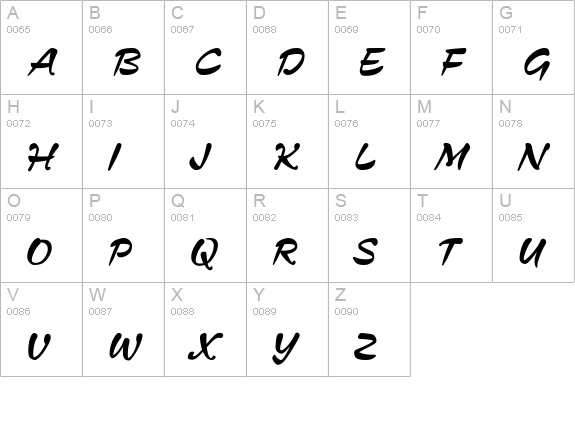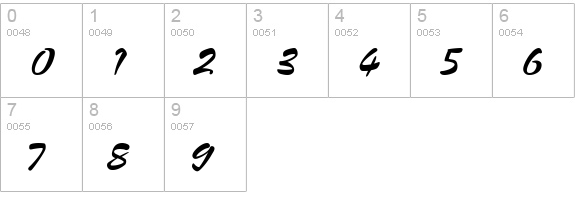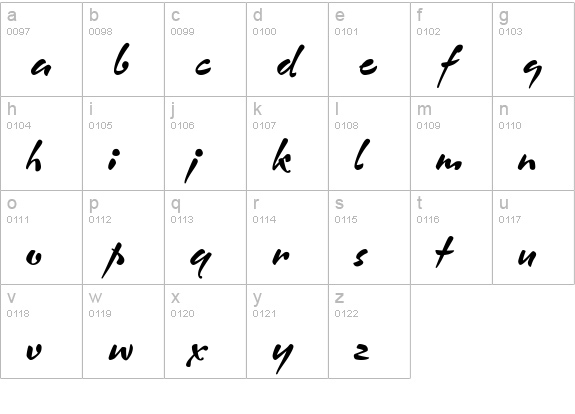
ZennorPlain Font Details
ZennorPlain is a modern and elegant font that exudes sophistication and style. With its clean lines and simple yet refined design, this font is perfect for a wide range of design projects, from branding to editorial design. The versatility of ZennorPlain makes it a great choice for both digital and print applications. The best part? ZennorPlain is completely free to download at FontsMarket.com. So whether you're a professional designer looking for a new go-to font or just someone who appreciates beautiful typography, be sure to check out ZennorPlain for your next project. With its timeless appeal and effortless charm, ZennorPlain is sure to elevate any design it's used in.